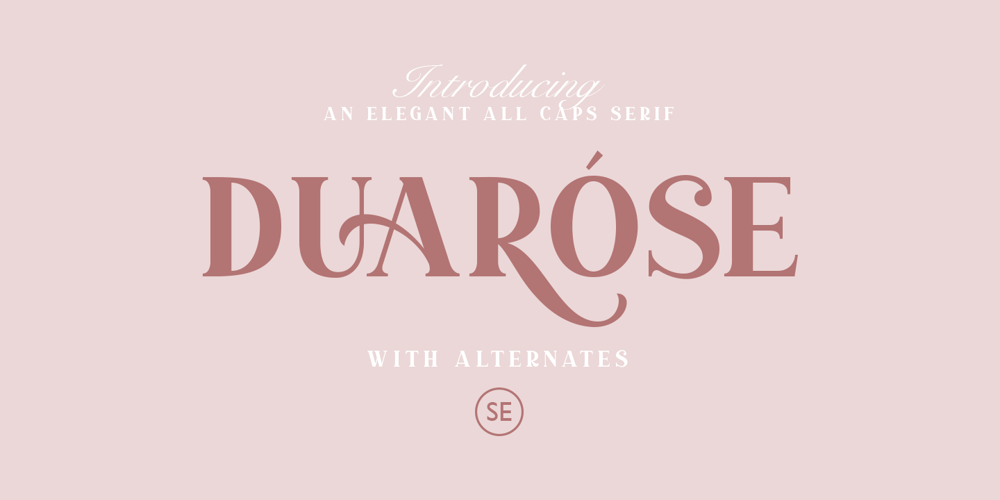
Duarose Serif Font Family was designed by Sarid Ezra and published by Sarid Ezra. Duarose Serif contains 1 styles and family package options. Introducing, brand new serif, Duarose – an elegant serif with a bunch of alternates!Duarose is a classic and elegant serif with a bunch of alternates up to 6 style for each characters that will make your presentation or logo even more stunning and stand out! Duarose also support Multi Language. and already PUA Encoded!Features All Uppercase Number & Symbol Multi language Alternates for each characters PUA Encoded